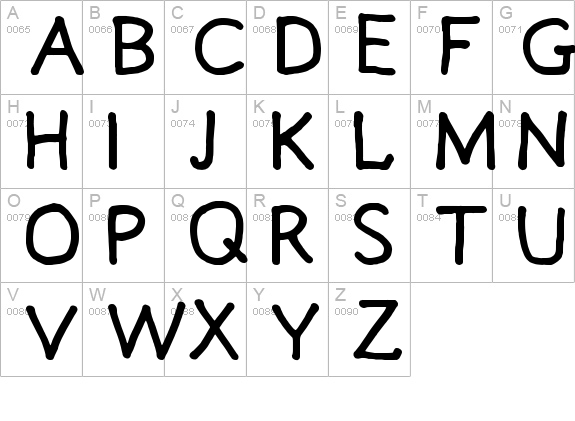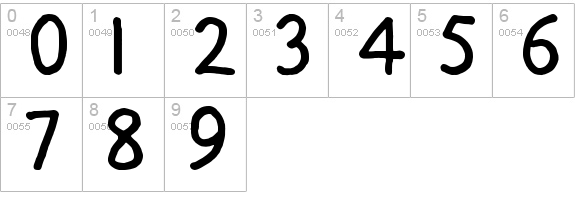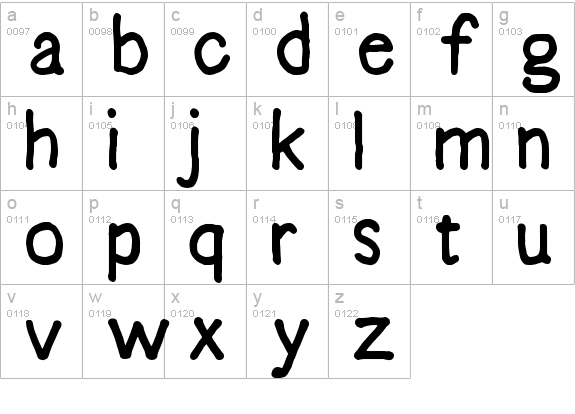
Emma Sophia Font Details
Introducing Emma Sophia, a stylish and elegant font that exudes sophistication and charm. With its graceful curves and refined details, Emma Sophia is perfect for adding a touch of luxury to your designs. Whether you're working on wedding invitations, branding materials, or social media graphics, this versatile font will elevate your projects to the next level. What's even better is that Emma Sophia is completely free to download at FontsMarket.com. Yes, you read that right - this exquisite font is available for you to use in your personal and commercial projects without any cost. So why wait? Enhance your designs with the beauty of Emma Sophia today!